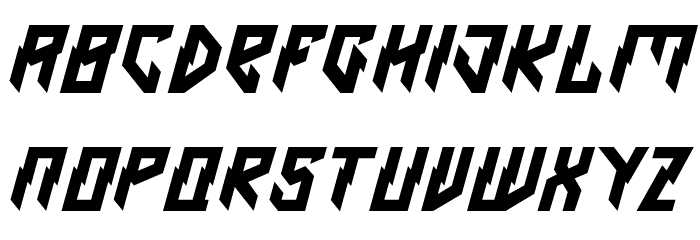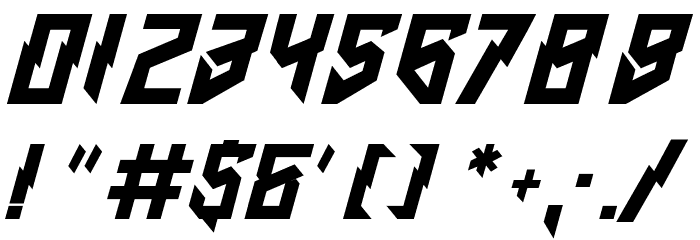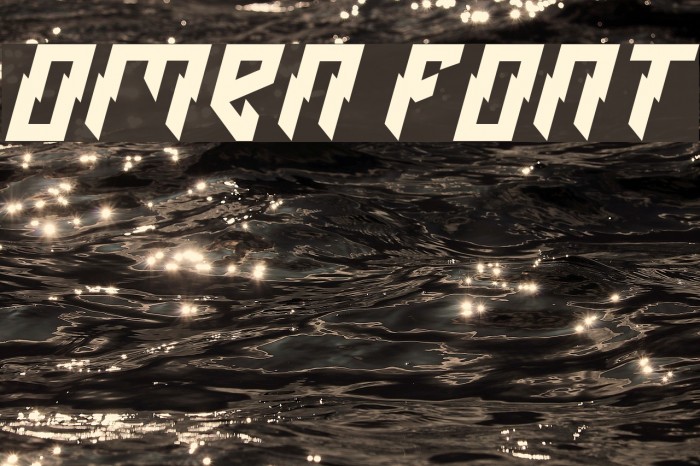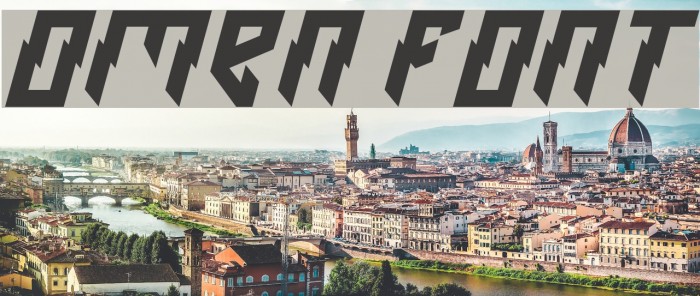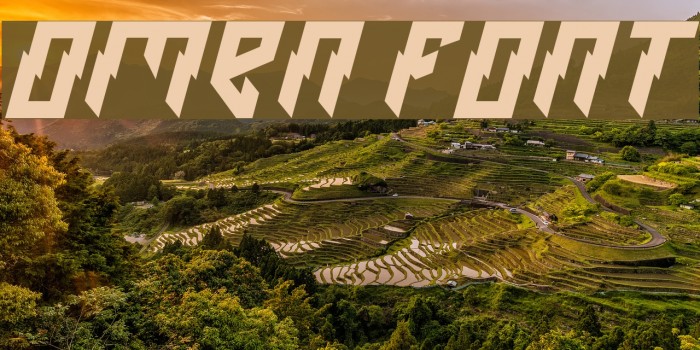
Omen Font
This font features a bold and angular design, characterized by sharp edges and a dynamic, futuristic appearance. The letters are constructed with a geometric style, giving them a strong and impactful presence. The uppercase and lowercase letters maintain a consistent style, with each character exhibiting a unique angularity that adds to the overall aesthetic. The numbers and special characters follow the same design principles, ensuring uniformity across all glyphs. This font's boldness and distinct style make it ideal for projects that require a modern and edgy look.
A bold, angular, and futuristic font with a geometric style.
- Proposed Projects: Ideal for video game titles, sci-fi movie posters, tech branding, and edgy graphic designs.